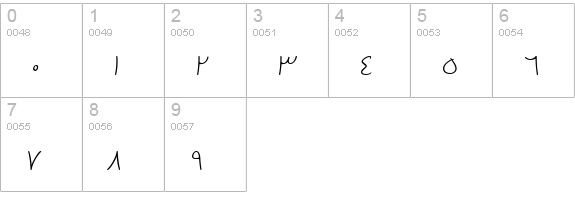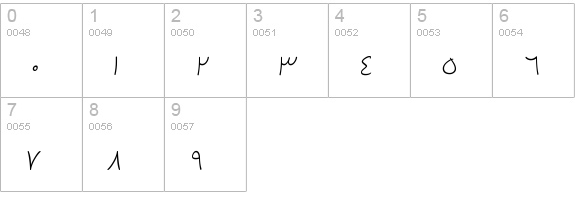
B Kamran Font Details
B Kamran font is a visually striking typeface that exudes elegance and sophistication. Its intricate details and sleek lines make it a perfect choice for projects that require a touch of modern flair. With its unique design elements and versatile style, B Kamran font is sure to make a statement in any design application. The best part about B Kamran font is that it is available for free download at FontsMarket.com. This means that you can easily access this stunning font and incorporate it into your projects without any hassle. Whether you are working on a personal project or a professional design, B Kamran font is a fantastic choice that will elevate your work to the next level. Don't miss out on the opportunity to enhance your designs with the beauty and sophistication of B Kamran font. Download it for free today at FontsMarket.com and see the difference it can make in your creations.